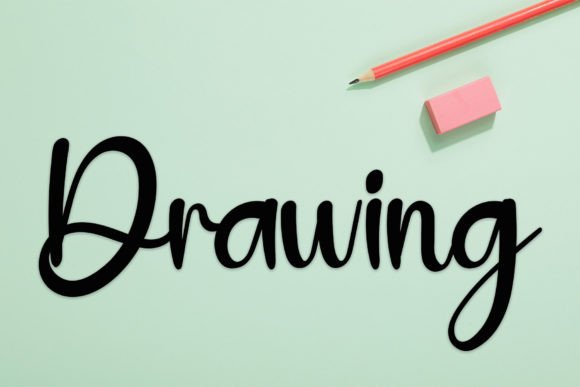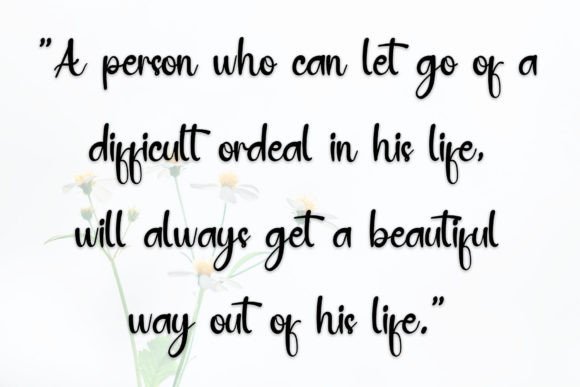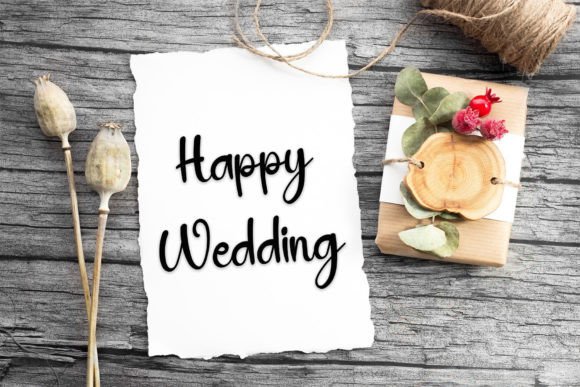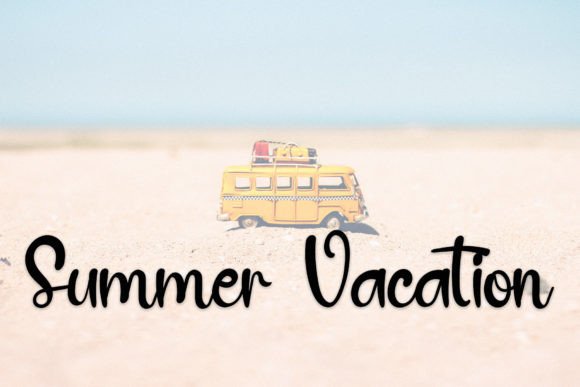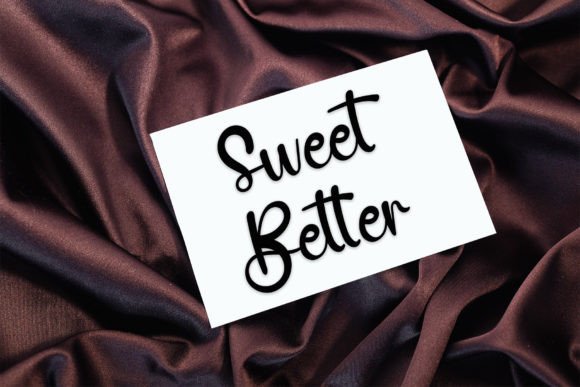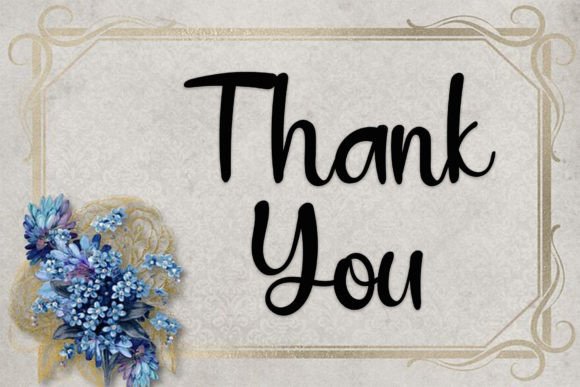
Felling Font: Elevate Your Designs with Timeless Elegance
In the world of typography, a well-crafted font can make all the difference in elevating your designs from ordinary to extraordinary. Introducing Felling Font, a stylish handwritten font that embodies the perfect blend of contemporary flair and classic sophistication. Inspired by timeless classic calligraphy, Felling Font is designed to bring an air of elegance and refinement to your projects.
A Font that Exudes Balance and Variety
Felling Font boasts a beautifully balanced and varied design, making it an ideal choice for designers and crafters seeking to add a touch of personality to their work. Each letter is meticulously crafted to ensure a harmonious flow, creating a visually stunning effect that will captivate your audience. Whether you’re working on a branding project, packaging design, or digital content, Felling Font is the perfect companion to help you achieve your creative goals.
PUA Encoded for Effortless Access
What sets Felling Font apart is its PUA (Private Use Area) encoding, which allows for effortless access to a vast array of glyphs and ligatures. This means you can easily incorporate the font’s beautiful swashes, flourishes, and alternative characters into your designs, giving you unparalleled creative freedom. With Felling Font, you can unlock a world of typographic possibilities and take your designs to new heights.
Felling Font’s versatility knows no bounds, making it an excellent choice for a wide range of design applications. Here are just a few examples of how you can harness the power of Felling Font:
- Branding and Logos: Create stunning logos, wordmarks, and letterheads that exude sophistication and style.
- Packaging Design: Elevate your product packaging with beautiful labels, tags, and inserts that showcase your brand’s personality.
- Digital Content: Add a touch of elegance to your blog posts, social media graphics, and email newsletters.
- Stationery and Invitations: Design exquisite stationery sets, invitations, and greeting cards that make a lasting impression.
Why Choose Felling Font?
With so many fonts available, why choose Felling Font? Here are just a few compelling reasons:
- Unique and Memorable: Felling Font’s distinctive style ensures your designs will stand out from the crowd and leave a lasting impression.
- Highly Versatile: The font’s flexibility makes it suitable for a wide range of design applications and industries.
- Easy to Use: Felling Font’s PUA encoding and intuitive design make it simple to access and use the font’s extensive features.
In conclusion, Felling Font is a masterpiece of typographic design that offers a perfect blend of style, elegance, and creativity. With its beautiful balance, varied design, and PUA encoding, this font is an indispensable tool for designers and crafters seeking to elevate their work. Whether you’re looking to create stunning branding, packaging, or digital content, Felling Font is the perfect choice. Unlock the full potential of your designs with Felling Font and experience the power of timeless typography.